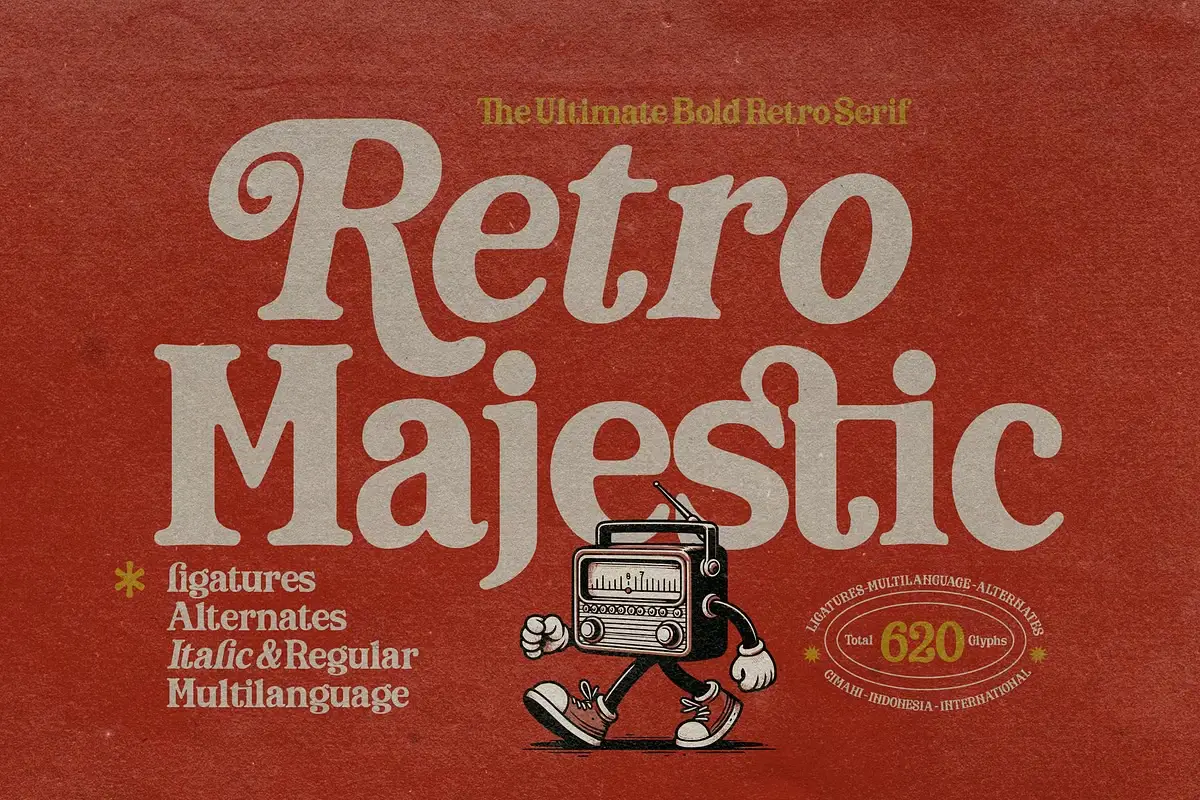
Retro Majestic font is a stunning serif typeface inspired by vintage font aesthetics, designed to bring elegance and character to your creative projects. With its bold yet refined lines and smooth curves, this font captures the charm of mid-century design while maintaining a modern touch. It is perfect for advertising, large lettering, and brand identity that requires a timeless, sophisticated appeal. Whether used for packaging, posters, logos, or editorial layouts, Retro Majestic ensures your designs stand out with a striking and memorable look.
This typeface boasts over thirty distinctive styles, allowing for great versatility in design applications. Its high-contrast letterforms and smooth, rounded edges create an eye-catching yet readable display, making it ideal for both digital and print media. The subtle influences of Art Deco and classic advertising aesthetics make it a perfect choice for projects seeking to evoke a sense of nostalgia while staying fresh and stylish. Retro Majestic blends historical beauty with contemporary usability, making it a must-have for designers who appreciate vintage elegance.
Retro Majestic serif font is not just a font—it’s a statement of sophistication and artistic craftsmanship. Whether you’re working on a luxury brand, a throwback-themed advertisement, or an eye-catching magazine layout, this typeface brings a majestic presence to every letter. Its timeless charm ensures that your designs will remain impactful and visually appealing, giving them a golden-age allure with a modern twist. Elevate your typography with Retro Majestic and make every word look effortlessly classic.